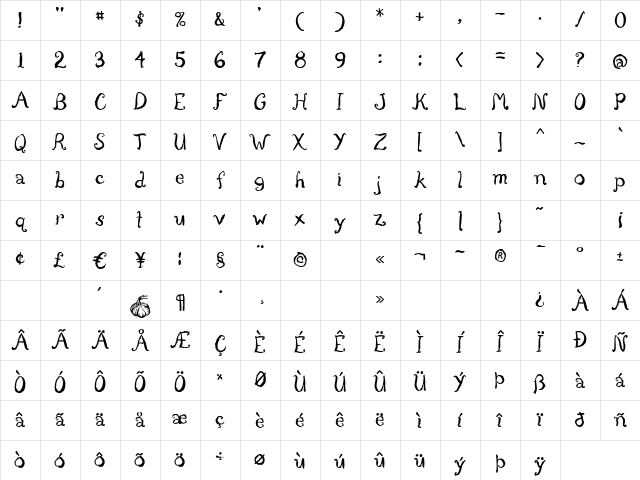
P22 Aglio Regular
Foundry: P22 type foundry / IHOF
Designer: Kevin Kegler
Design Context for P22 Aglio
P22 Aglio is a composed and adaptable typeface that performs quietly and consistently across a wide range of design contexts.